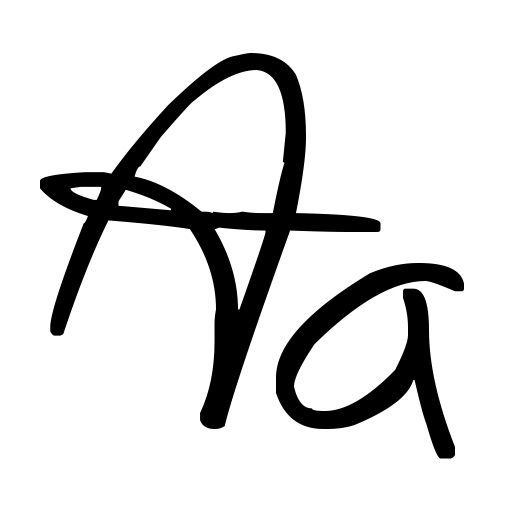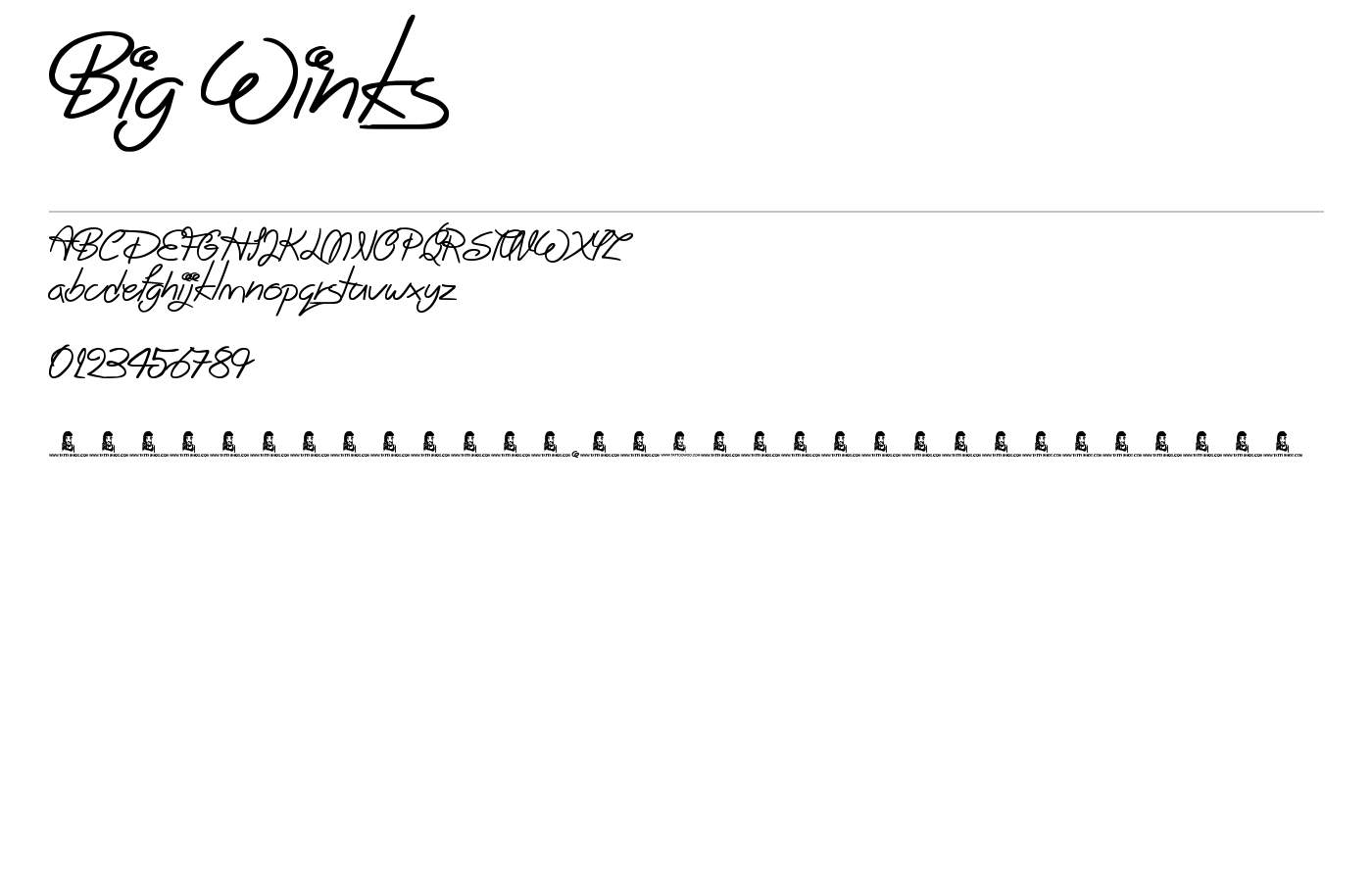
Big Winks is a playful and expressive script font characterized by its loose, handwritten style with tall, slender letterforms and lively swashes. Its light weight and irregular strokes give it a casual and spontaneous feel, making it perfect for creative projects that want to convey personality and charm. This font works well for eye-catching headlines, logos, and whimsical branding where a unique, informal touch is desired.
Big Winks Font